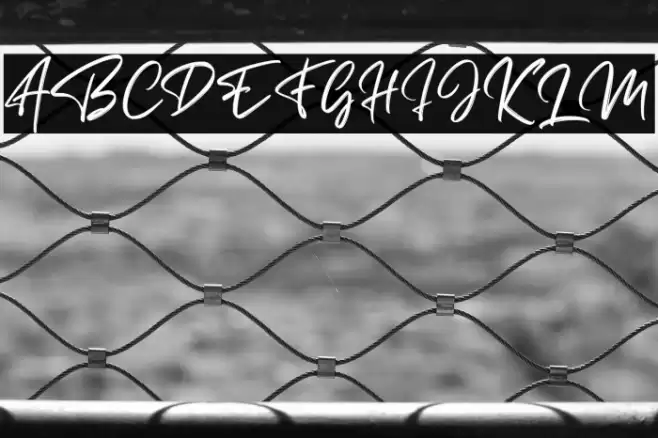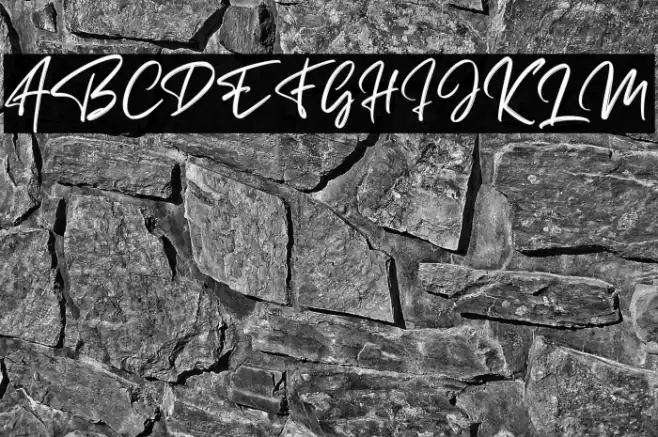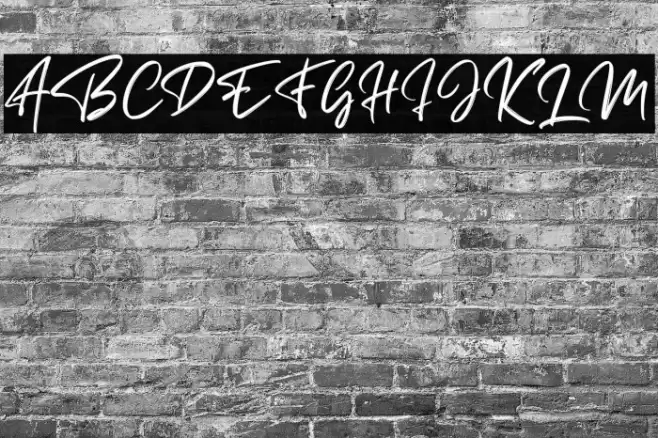
Sometimes Font
Sometimes Description
This font features a lively and expressive handwritten style, characterized by its fluid and dynamic strokes. The letters are connected in a cursive manner, giving it a natural and personal touch. The uppercase letters are bold and slightly slanted, while the lowercase letters maintain a consistent flow with varying heights and loops. The numerals and special characters are crafted to match the overall aesthetic, ensuring a cohesive look. This font exudes a sense of creativity and spontaneity, making it ideal for projects that require a personal or artistic flair.
A lively, expressive handwritten font with fluid, dynamic strokes from Uncategorized fonts.
- Font: Sometimes
- Proposed Projects: Ideal for wedding invitations, greeting cards, personal branding, and artistic projects.
- Use Case: Logos, Invitations, Artistic projects